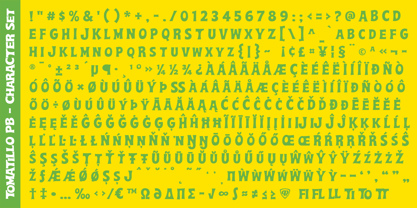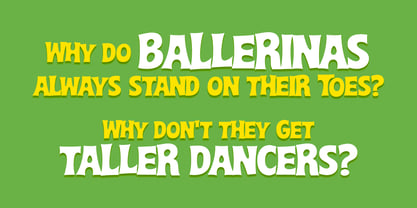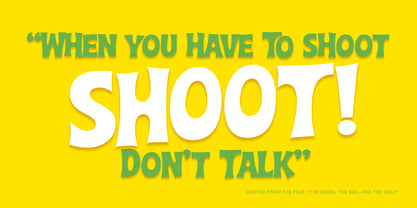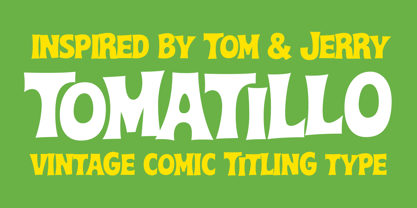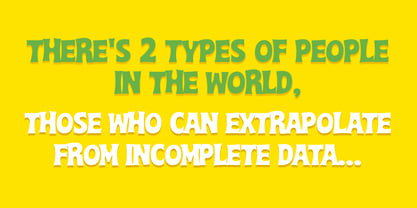
Tomatillo PB
by Pink Broccoli
The Tomatillo PB Font Family was designed by Brian J. Bonislawsky, Phil Bracco and published by Pink Broccoli. Tomatillo PB contains 1 styles. More about this family
Tomatillo PB is a lively cartoon titling font inspired by the hand-lettered spirit of vintage Gold Key Tom and Jerrycomics. The letters carry a subtle bounce and animated rhythm that feels right at home in classic comic panels and Saturday-morning mischief. Alternate capitals appear in the lowercase positions, giving designers extra ways to mix things up and keep compositions feeling spontaneous and alive. With its playful swagger and nostalgic charm, Tomatillo PB is perfect for comic-inspired branding, children’s titles, retro packaging, posters, and anything that calls for a wink, a smile, and a bit of animated attitude.
Designers: Brian J. Bonislawsky, Phil Bracco
Foundry: Pink Broccoli
Pink Broccoli, founded by Phil Bracco, aims to offer a delightful array of creative and festive fonts inspired by diverse resources. Phil's passion for playful type designs makes these fonts perfect for children's books, cheerful product packaging, and scrapbooking projects. Now part of Astigmatic (AOETI), Phil remains dedicated to developing new typefaces for the foundry. Collaborating with Brian J. Bonislawsky and Jim Lyles, the Pink Broccoli library continues to grow, providing inspiration and unique styles for designers and creatives alike.